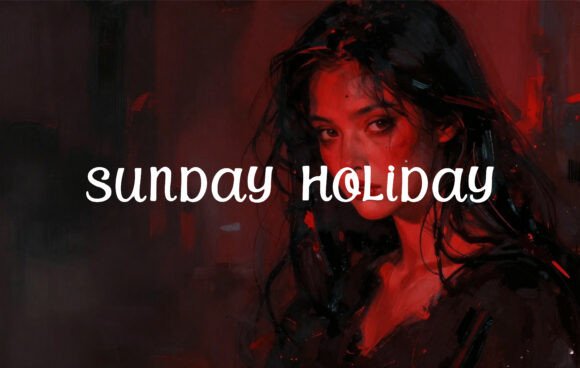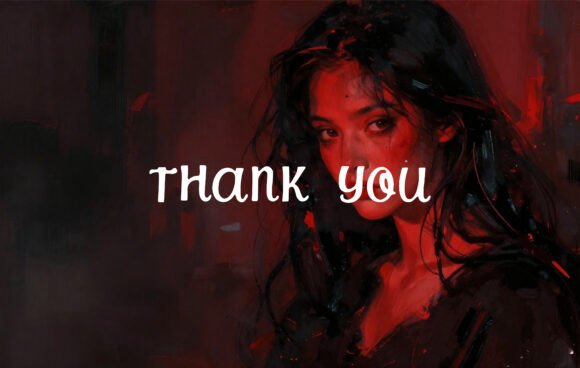
Falling in Love with Darling Font: A Designer’s Dream Come True
I’ll never forget the design project that led me to discover the Darling font. I was working on a logo design for a new boutique client, and I was struggling to find the perfect script font that exuded warmth, friendliness, and a touch of playfulness. The client wanted a logo that felt approachable, yet professional. After hours of scouring font websites and trying out various fonts, I stumbled upon Darling – and it was love at first sight! 💕
The Darling Font: A Beautifully Balanced Script
Darling is a beautifully balanced and charming bold script that radiates warmth, familiarity, and a touch of playful romance. This gorgeous font features thick, consistent strokes and perfectly rounded letterforms, creating a smooth, inviting, and highly legible flow. Unlike more dramatic scripts, Darling strikes a perfect equilibrium between a casual, handwritten feel and a confident, professional presence, making it incredibly versatile.
What I Love About Darling Font ✨
- ✅ Thick, consistent strokes that give it a robust and confident feel
- ✅ Perfectly rounded letterforms that create a smooth, inviting flow
- ✅ A perfect balance between casual and professional, making it versatile for various design projects
- ✅ A wealth of alternate characters and multilingual support for customized word styling
- ⚠️ Some users may find the font a bit too bold for certain design projects, such as body text or fine print
- ⚠️ Limited use of subtle variations in stroke width, which may make it less suitable for designs that require a high level of nuance
The Story Behind Darling Font
Darling font was designed with the intention of creating a script that felt both approachable and professional. The designer wanted to craft a font that would be perfect for a wide range of design projects, from logo design to social media quotes. With its beautifully balanced strokes and perfectly rounded letterforms, Darling font has become a favorite among designers and crafters alike.
| What makes Darling font so special? | Darling font is special because of its unique balance between a casual, handwritten feel and a confident, professional presence. Its thick, consistent strokes and perfectly rounded letterforms make it highly legible and versatile. |
| Is Darling font suitable for body text? | While Darling font is beautiful and highly legible, it may be too bold for body text. It’s best suited for headlines, titles, and short paragraphs. |
| Does Darling font come with multilingual support? | Yes, Darling font comes with multilingual support, making it perfect for designs that require a range of languages. |